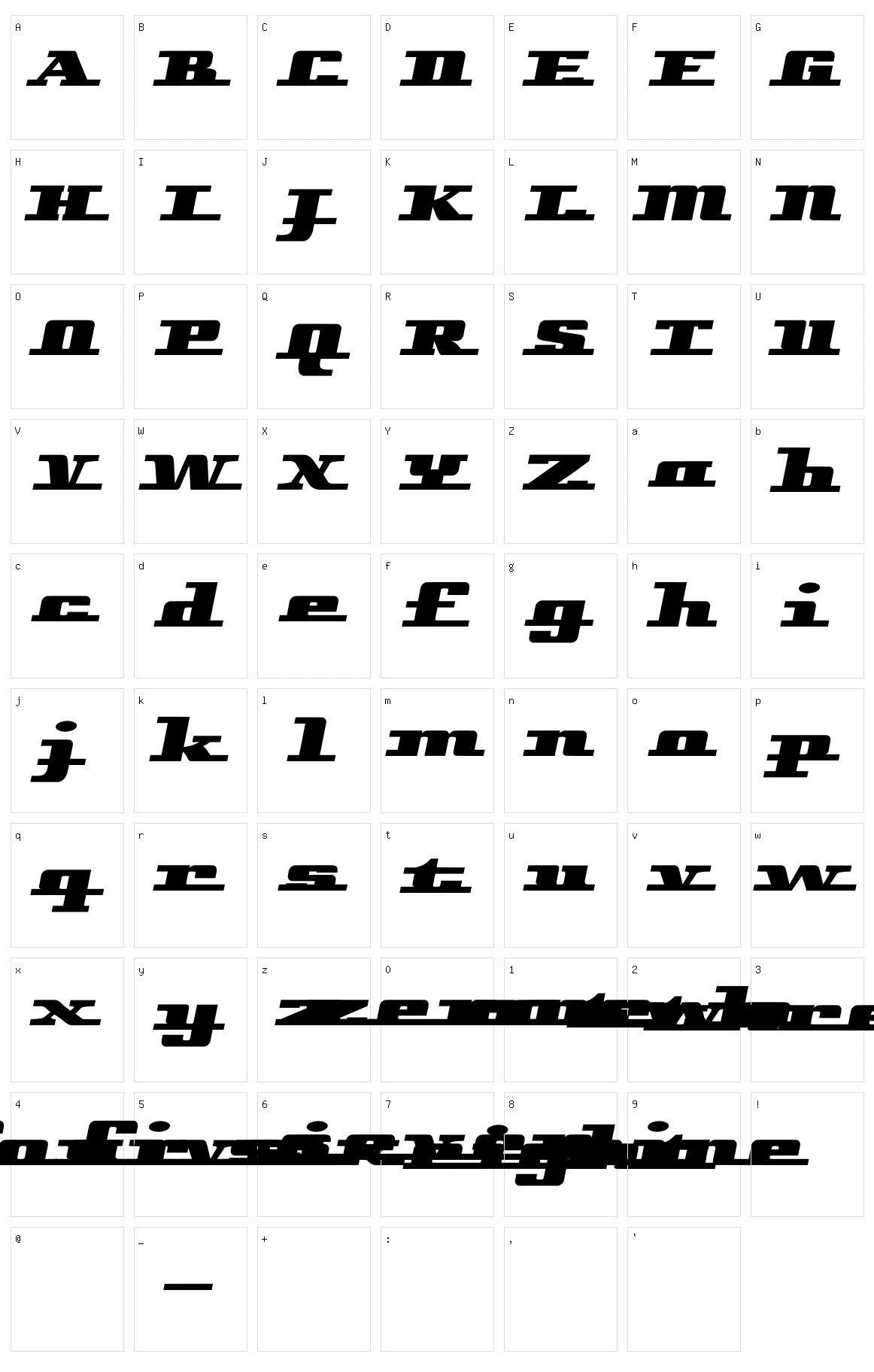
Remarcle
Designed by: Tup Wanders
This font started as a logo for the Remarcle agency. The left and right versions are to be used at the beginning and the end of the word or logo...